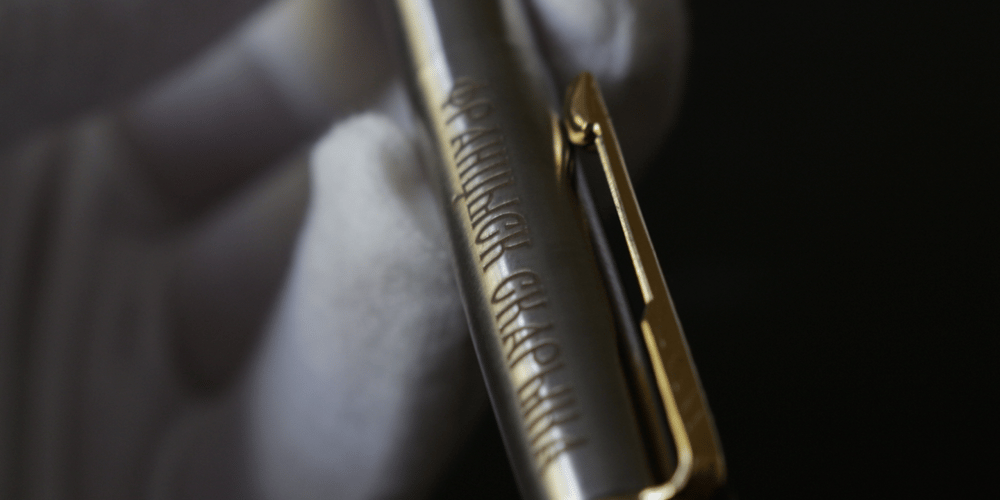
Skaryna 2017 Title Font Family was designed by Aliaksei Koval and published by Koval TF. Skaryna 2017 Title contains 1 styles and family package options. Skaryna 2017 Title is a revival of the original typeface designed and cut by Francisk Skaryna in 1517–1519. Skaryna 2017 Title is designed to celebrate the 500th anniversary of the original work by Francisk Skaryna (lat. Franciscus Scorina de Poloczko) — scientist and educator from Polotsk (current Belarus). The original designs contain only Cyrillic characters. So Latin and additional characters were added to make the legacy of Francisk available for the World. The revival was designed to stay close to the original and remain a little bit inaccurate as early Renaissance printing technologies were. This project was sponsored by Anton Bryl.